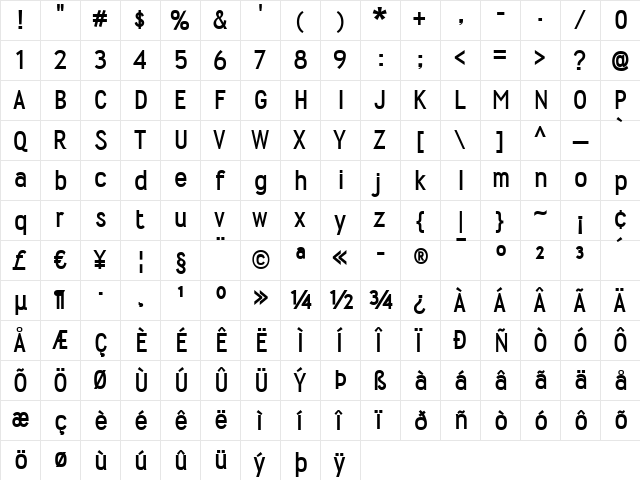
Wyvern Bold
Design Context for Wyvern Typeface
Wyvern is a composed and adaptable typeface that performs quietly and consistently across a wide range of design contexts. Its bold stroke weight gives it real presence on the page.